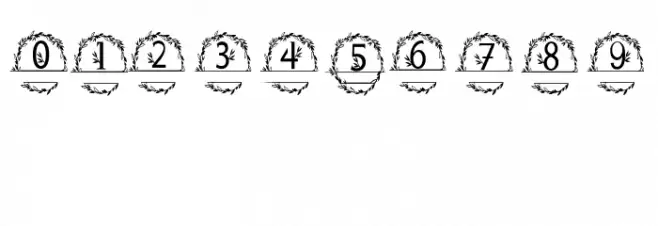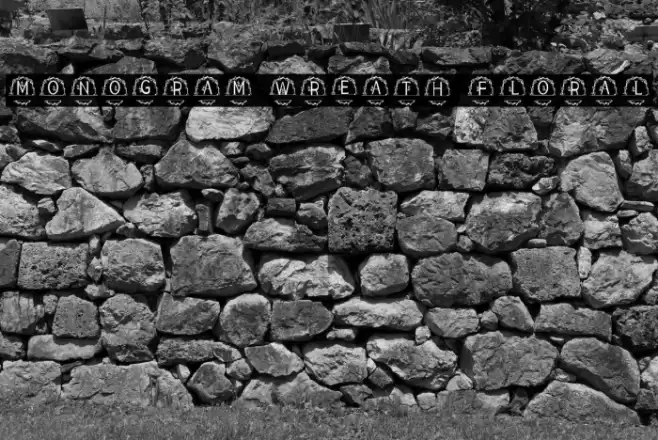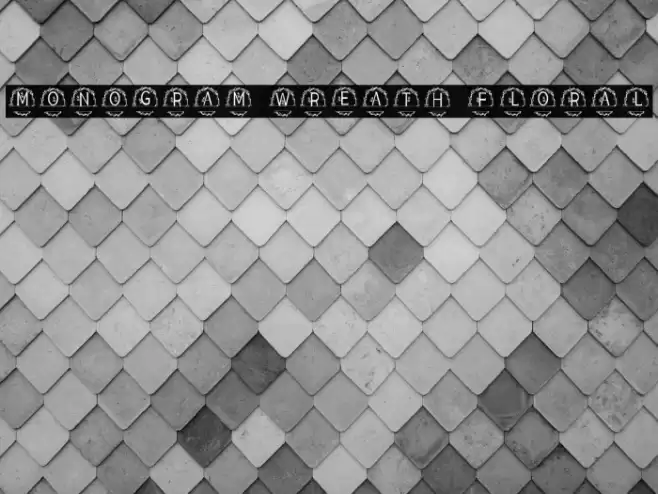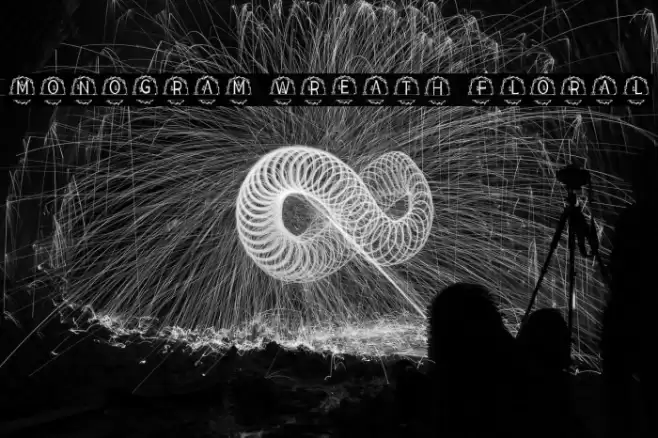
MONOGRAM WREATH FLORAL Font
MONOGRAM WREATH FLORAL Description
This decorative font features each character encased within a delicate floral wreath, creating a monogram-like appearance. The letters are uppercase and presented in a serif style, with elegant curves and a classic feel. The floral wreaths add a touch of nature and sophistication, making it ideal for formal and decorative uses. The numbers and special characters are similarly styled, maintaining consistency across the set. This font is perfect for projects that require a touch of elegance and personalization.
| Use Case | Logos, Invitations, Decorative Text |
| Proposed Projects | Wedding invitations, personalized stationery, branding for luxury products, decorative monograms. |